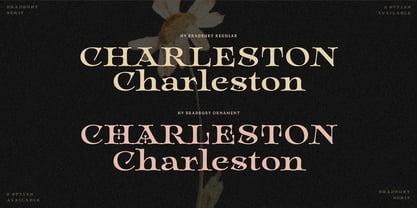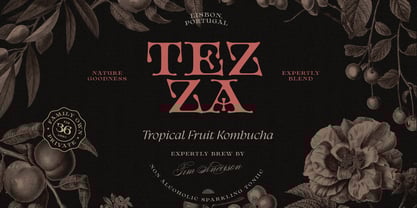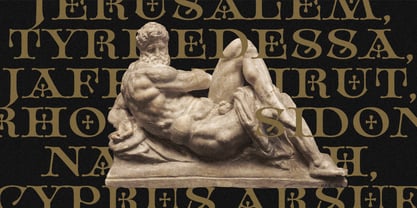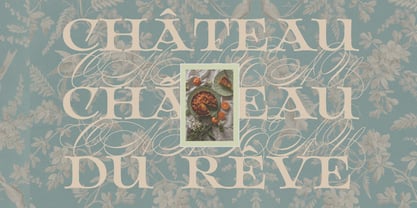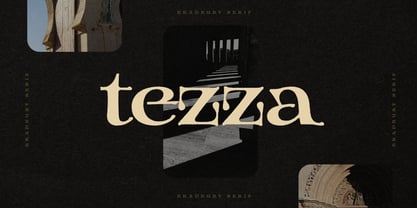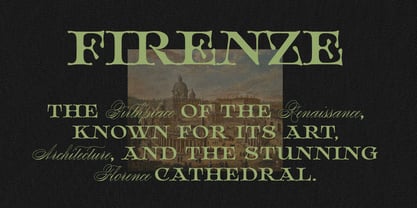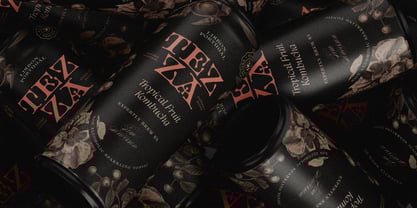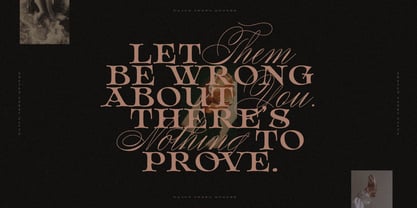
HV Bradbury
by Harmonais Visual
The HV Bradbury Font Family was designed by Max Duy T., Ivy Xuyen Phan and published by Harmonais Visual. HV Bradbury contains 2 styles and family package options.
Bradbury is a Renaissance-inspired serif typeface that exudes timeless elegance and refined craftsmanship. Seamlessly blending tradition with modern sophistication, it comes in two distinct styles—Regular for a classic, graceful aesthetic and Ornament for an exquisite decorative touch. Perfect for editorial design, branding, and luxurious typography.
Designers: Max Duy T., Ivy Xuyen Phan
Publisher: Harmonais Visual
Foundry: Harmonais Visual
Design Owner: Harmonais Visual